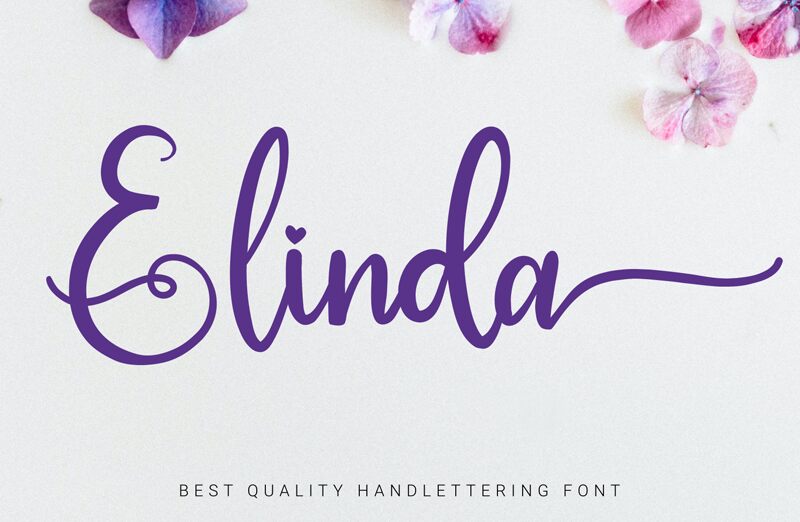
Elinda
Elinda font is a free calligraphy font that presents graceful elegance in every curve. Each of its characters perfectly captures the essence of fluid handwriting with pure expressiveness and passion which turns each word into a work of art. The modern flair connected to the hand lettering style makes it a combination unlike any other.
Use Elinda for wedding invitations, fashion magazine covers, posters, notebook covers, branding and packaging projects; as well as social media posts since its viewer engagement is undeniable.